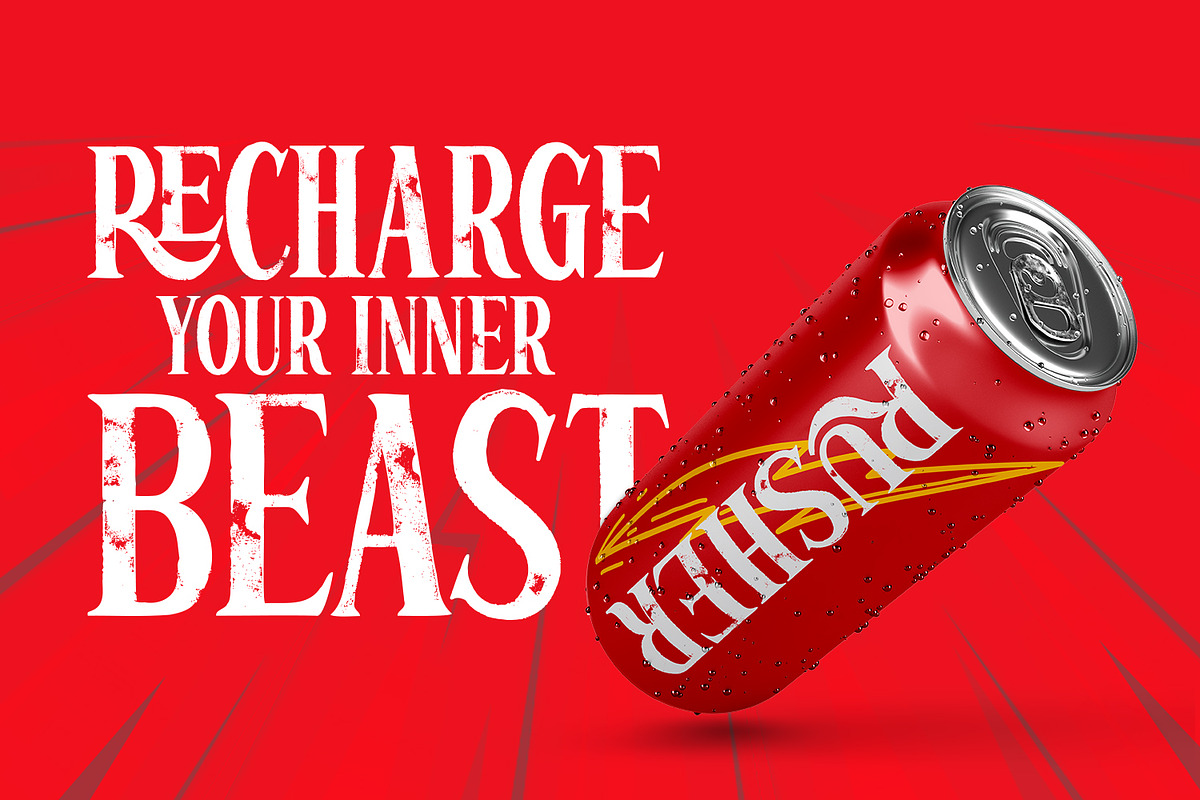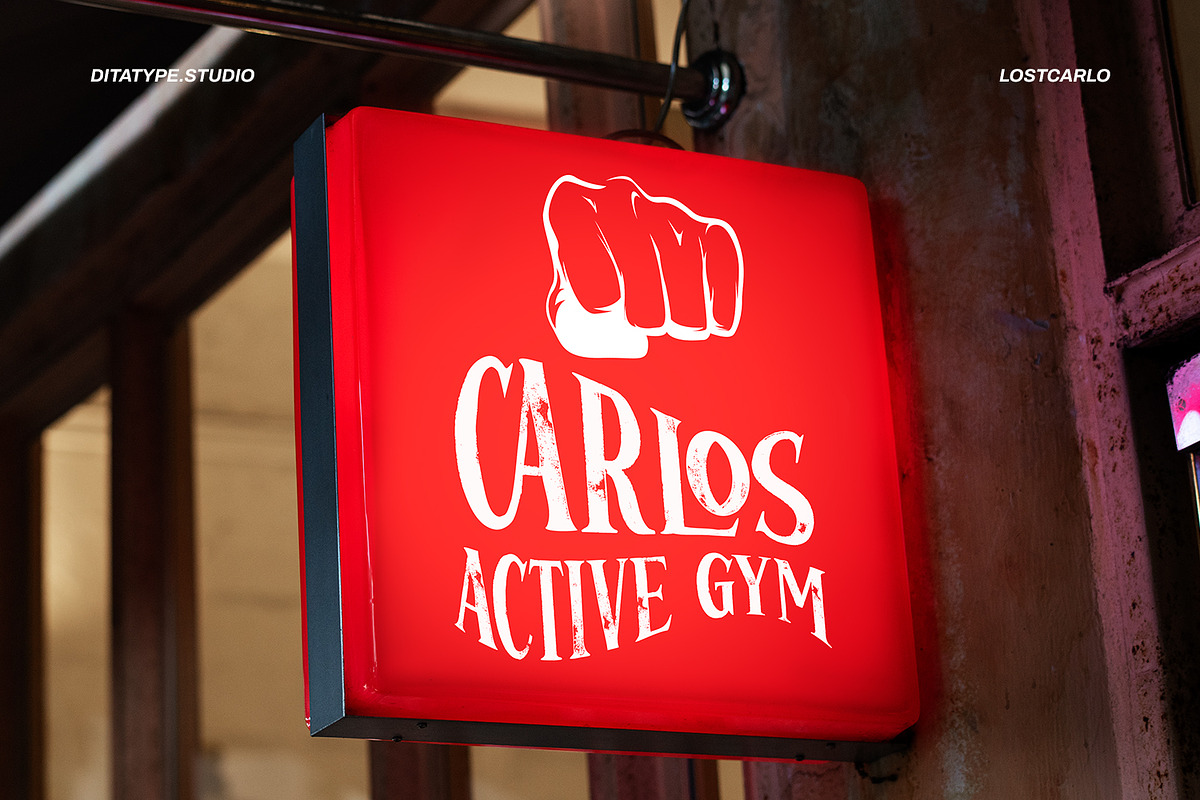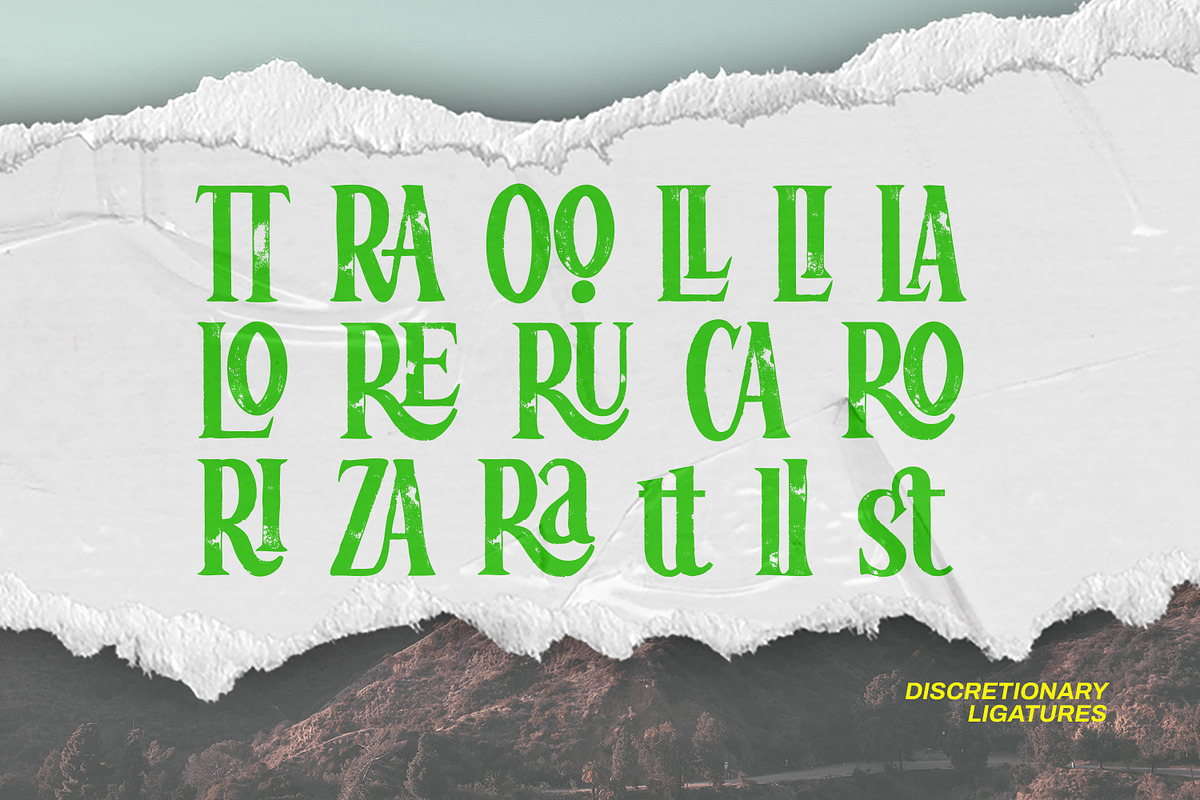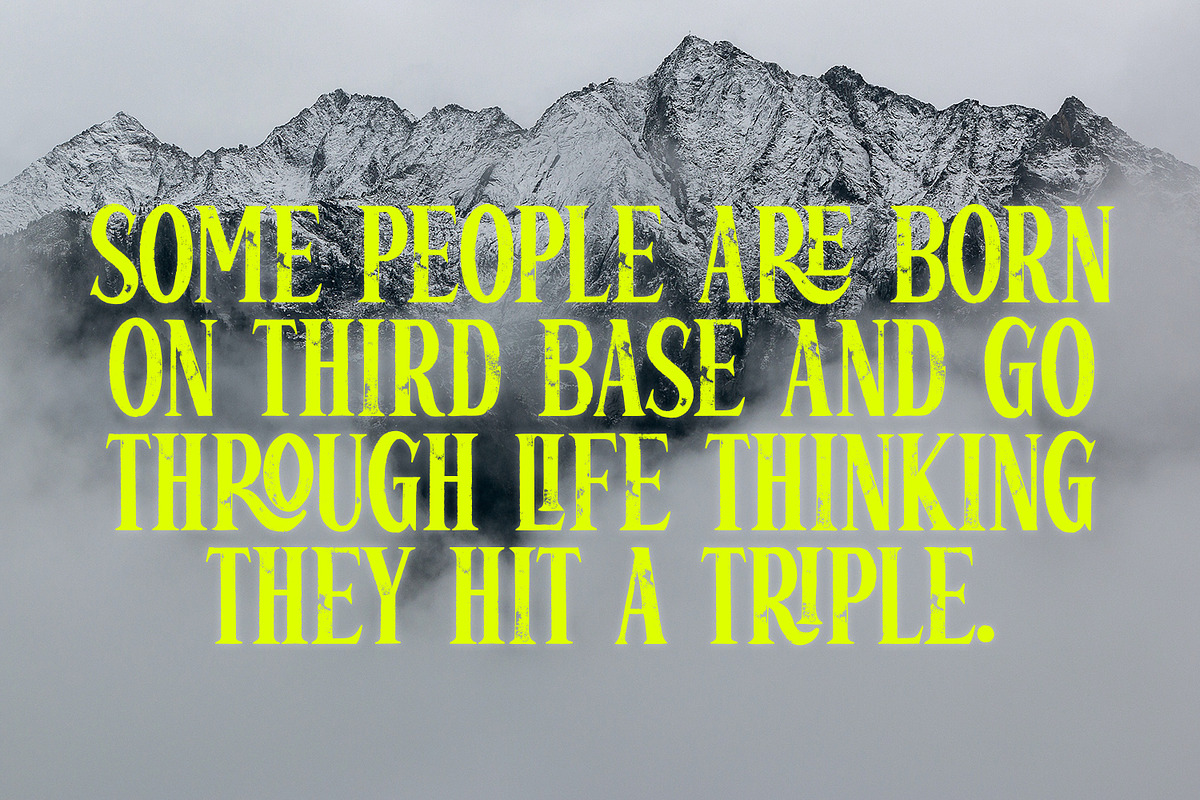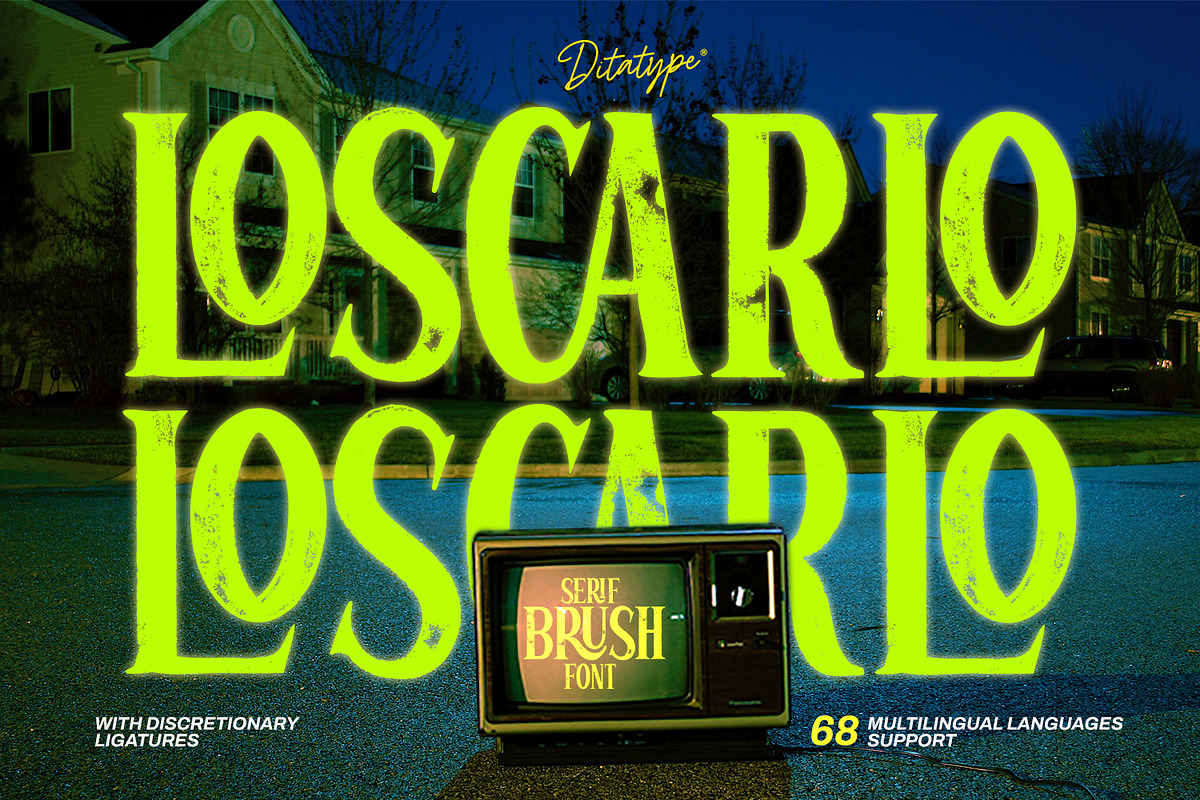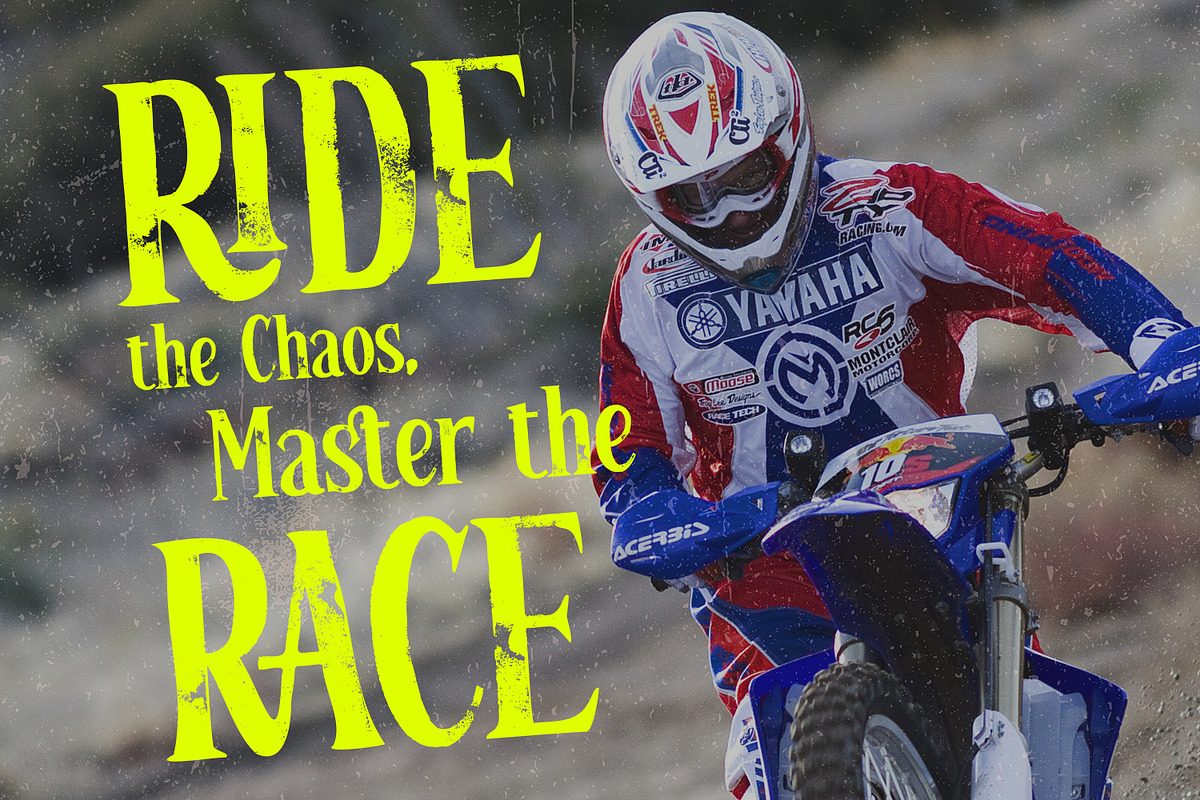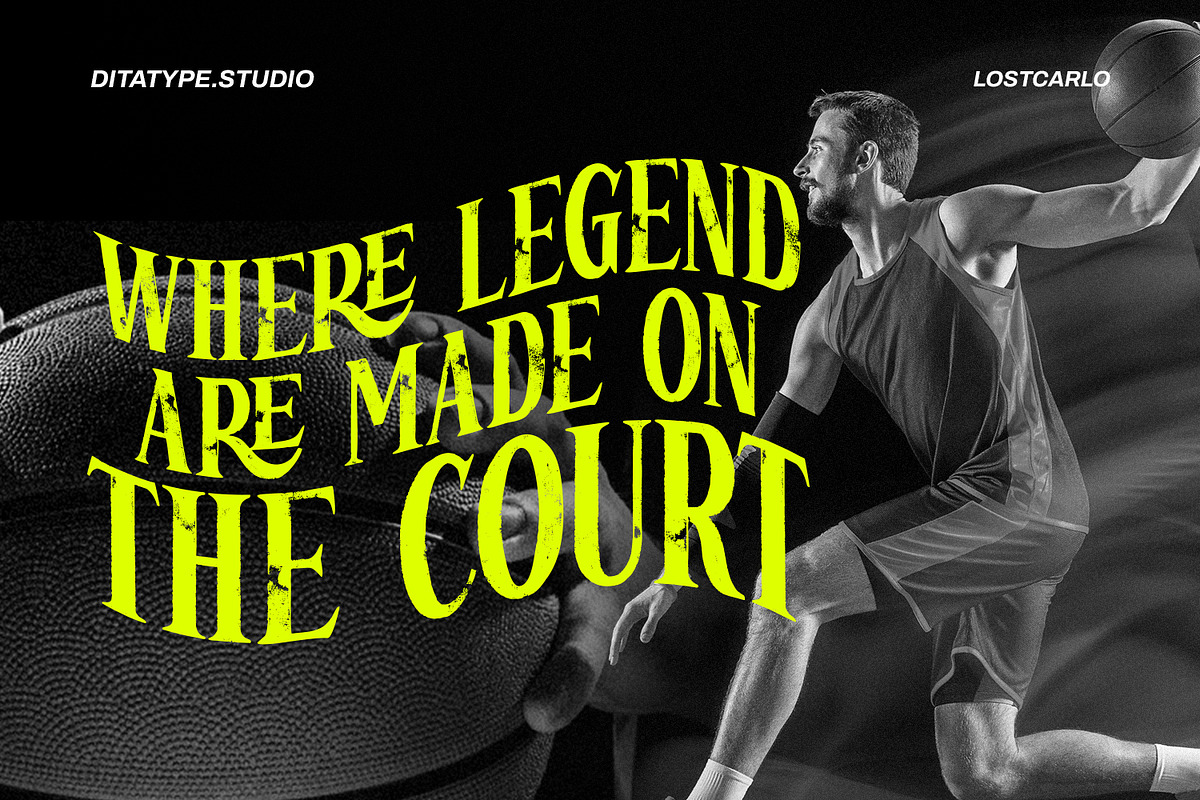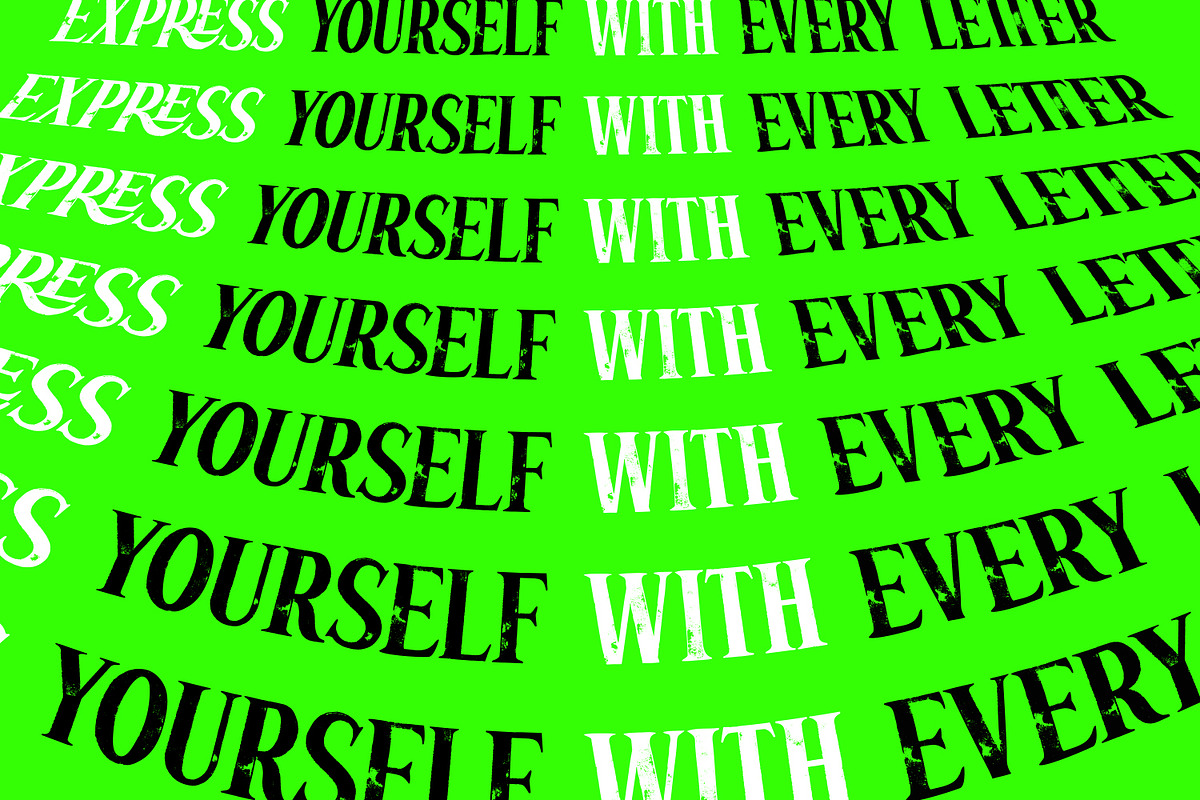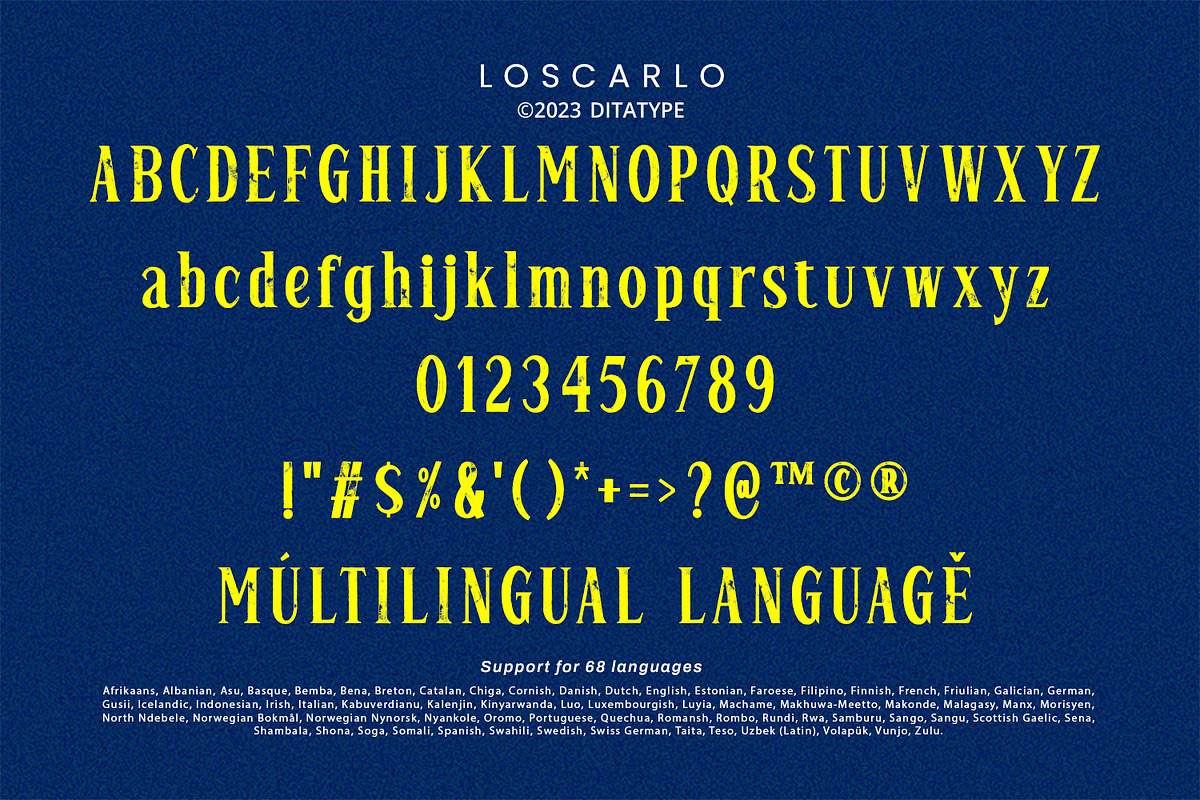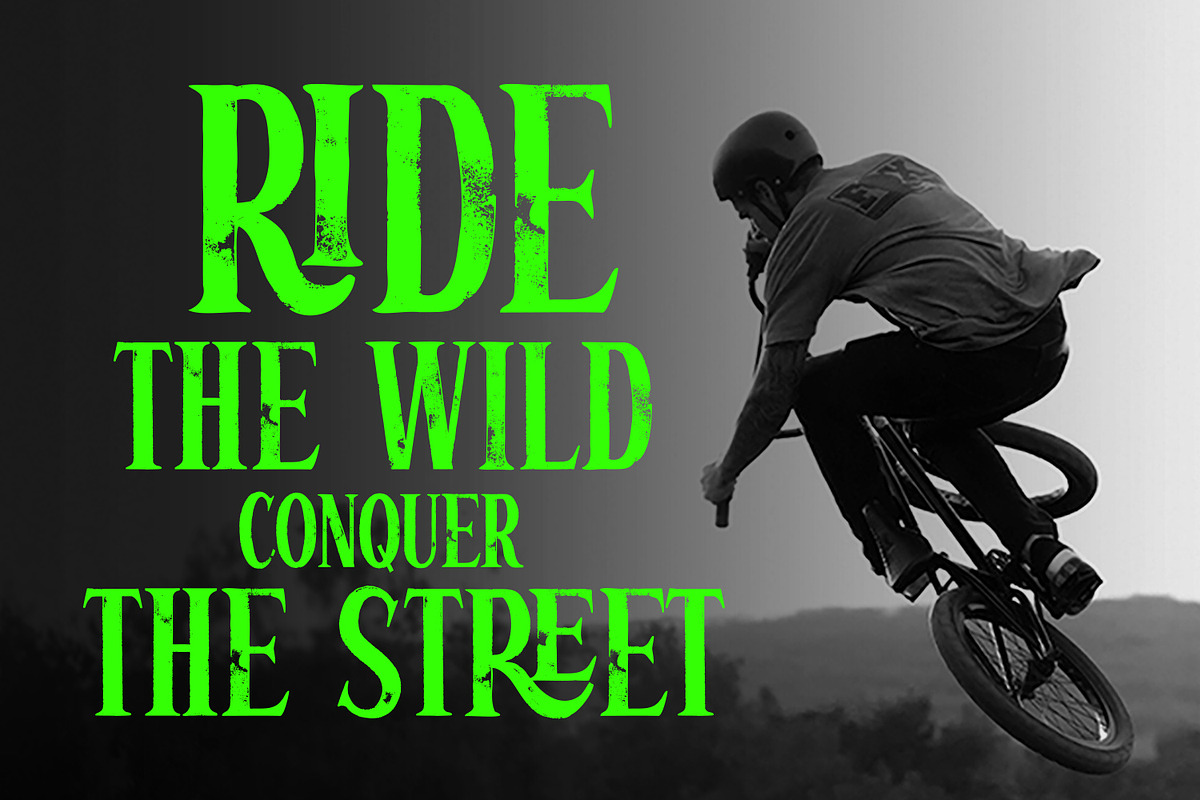
Loscarlo
Loscarlo is a captivating serif font that seamlessly merges the timeless elegance of serif typography with the organic charm of brush details. The characters in Loscarlo showcase the classic structure of serifs, offering a sense of tradition and readability. What makes this font unique is the thoughtfully incorporated brush details, which add a dynamic and handcrafted quality to the letterforms. The result is a harmonious balance between refined aesthetics and a hint of expressive creativity. Enjoy the features here.
Loscarlo fits in headlines, logos, posters, flyers, branding materials, greeting cards, print media, editorial layouts, and many more designs. Find out more ways to use this font by taking a look at the font preview.